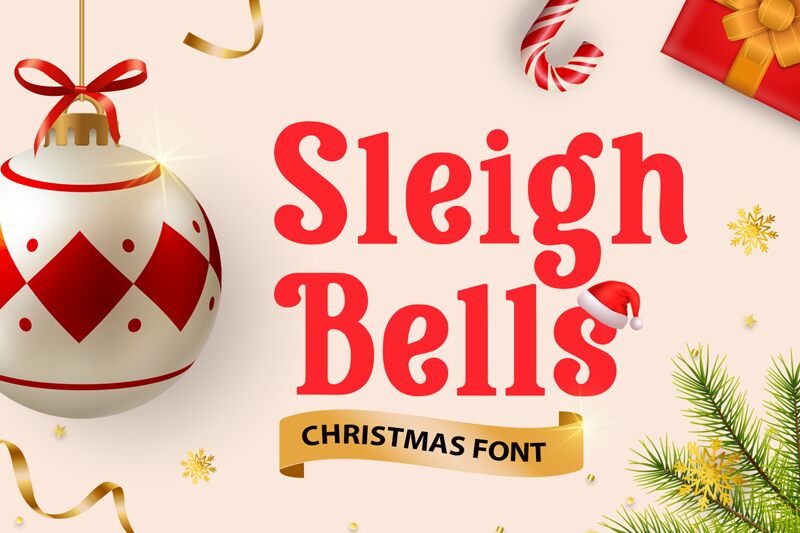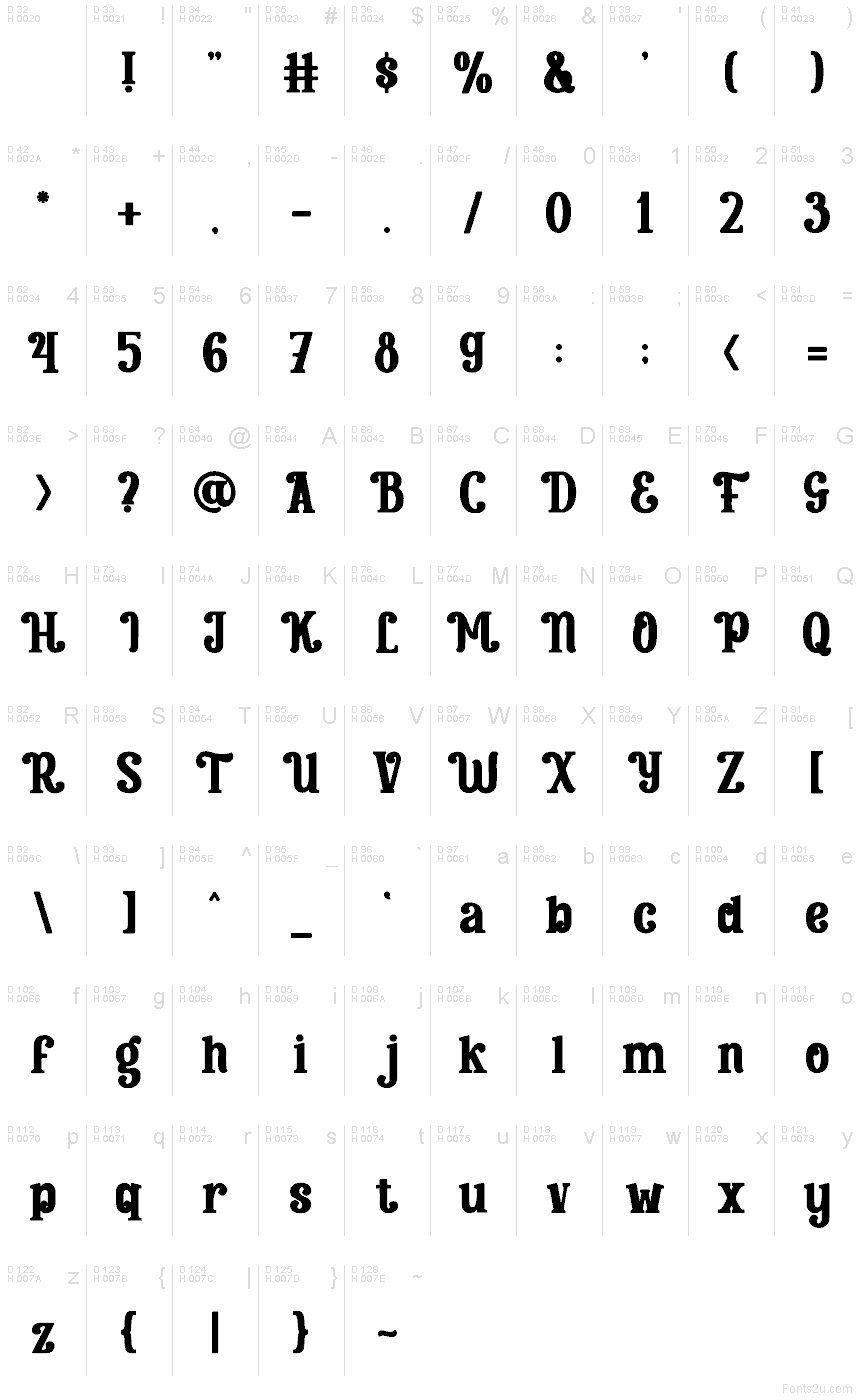
Sleighbells
Sleighbells font by Mozatype is a free Christmas holiday typeface that wraps your words in cozy, storybook charm. Its chunky, softly rounded serifs and snug spacing feel like vintage shop signs dusted with snow, with a gentle bounce that keeps long titles feeling warm instead of stiff. There’s a touch of old-world print to it, so even bold headings still feel friendly and handcrafted.
Using Sleighbells, your holiday projects instantly pick up that classic, fireside mood—great for greeting cards, party invitations, gift tags, posters, banners, and festive social graphics. This free font shines when used large, where its inky curves and playful rhythm can really sing. Pair Sleighbells with a clean sans serif for body copy to keep layouts readable while letting the headline carry all the Christmas magic.